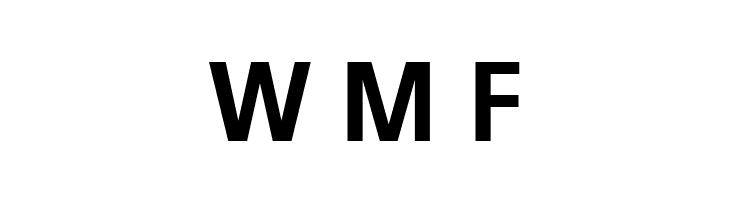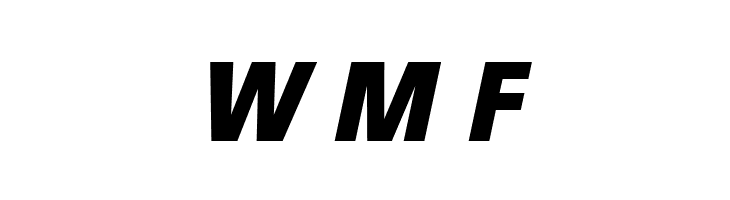
A modern, sleek font with elongated, narrow characters and clean lines.
A bold, modern font with a geometric and condensed style.
A bold, oblique sans-serif font with a modern and dynamic style.
A bold, modern sans-serif font with uniform strokes and geometric shapes.
A clean, modern sans-serif font with balanced proportions and consistent stroke width.
A modern, clean sans-serif font with uniform stroke width and balanced spacing.
A bold, oblique font with strong, consistent strokes and a modern feel.
A modern, oblique sans-serif font with clean lines and balanced proportions.